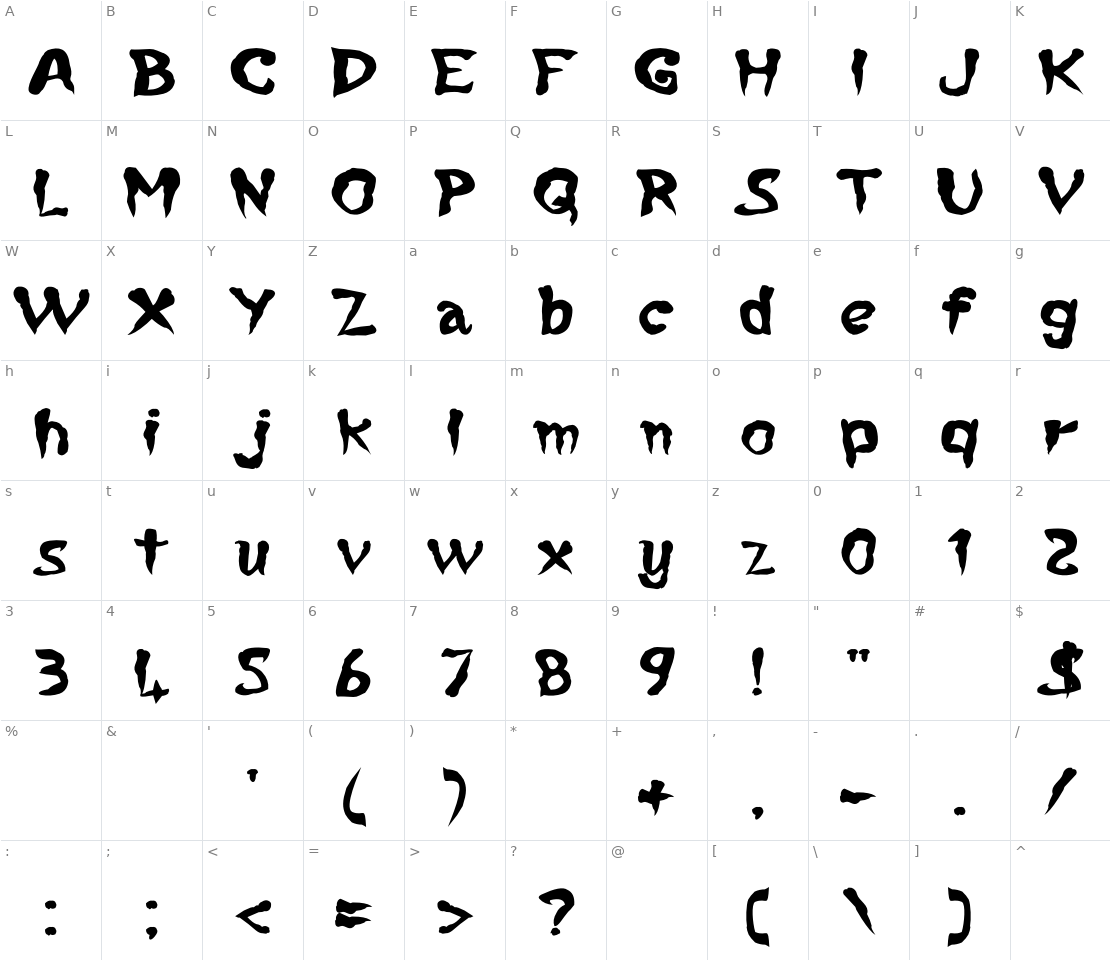
Notorious
by Alphabet & Type
Notorious is a heavy, roughened display face from Alphabet & Type with thick letterforms that look like they've been dragged through dirt and left to decay. The grunge texture and dark personality make it a go-to for horror titles, gritty event posters, and anything that needs to feel ominous and worn. Best kept big, where the distressed edges and raw weight can do their job.